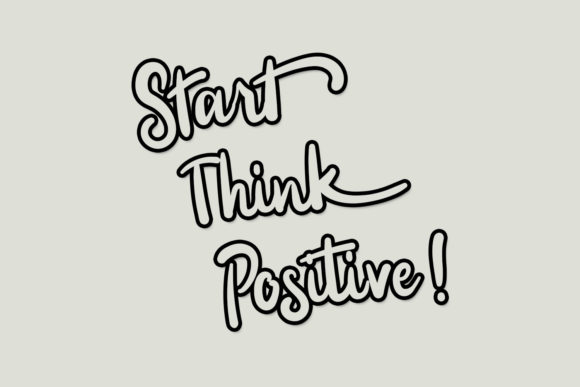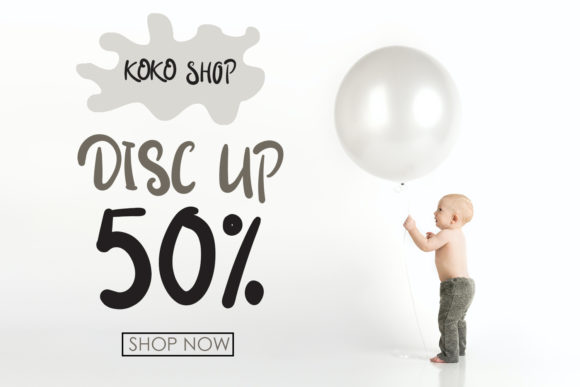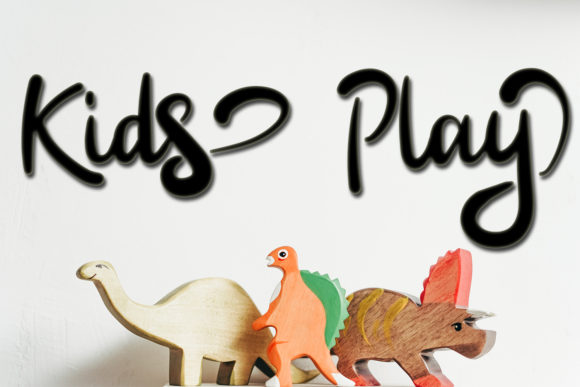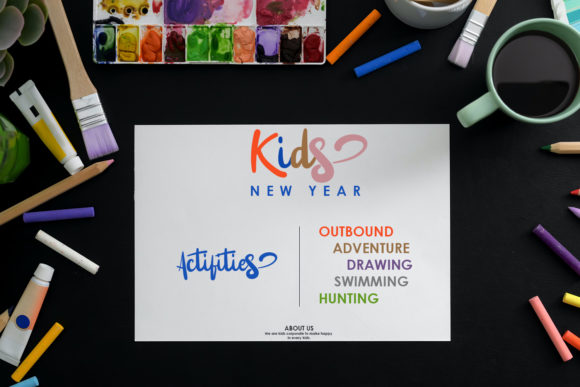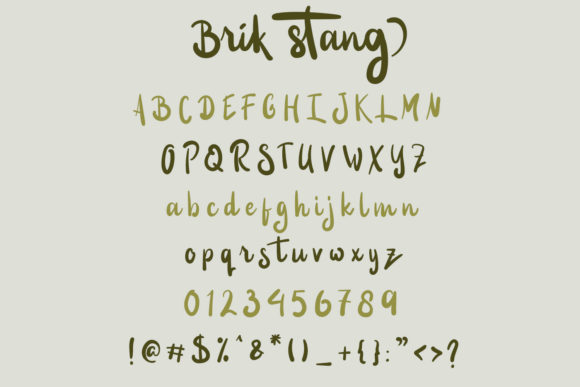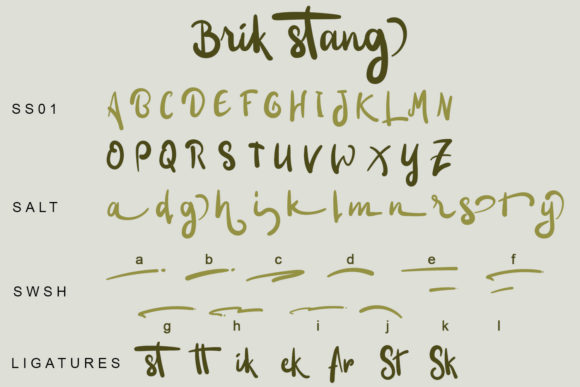
Brik Stang Font: A Charming Handwritten Font for Your Creative Projects
If you’re a designer or crafter looking for a font that exudes charm and friendliness, look no further than Brik Stang Font. This stunning handwritten font is a stylish homage to classic calligraphy, making it perfect for a variety of creative projects. In this article, we’ll take a closer look at the features of Brik Stang Font and explore its many uses.
A Font that Feels Equally Charming and Friendly
Brik Stang Font is a beautifully crafted font that feels equally charming and friendly. Its varying baseline, smooth lines, and gorgeous glyphs all work together to create a font that is both authentic and visually appealing. Whether you’re looking to create wedding invitations, social media posts, or greeting cards, Brik Stang Font is the perfect choice.
A Stylish Homage to Classic Calligraphy
Brik Stang Font is a stylish homage to classic calligraphy, with a unique and elegant feel that is sure to impress. The font features stunning alternates, which allow you to add a touch of personality to your designs. With Brik Stang Font, you can create beautiful and sophisticated designs that are sure to stand out.
Perfect for a Variety of Creative Projects
Brik Stang Font is a versatile font that is perfect for a variety of creative projects. Here are just a few ideas to get you started:
- Wedding Invitations: Create gorgeous wedding invitations that set the tone for a beautiful and memorable day.
- Stationary Art: Use Brik Stang Font to create beautiful stationary art that is perfect for letters, cards, and more.
- Social Media Posts: Add a touch of elegance to your social media posts with Brik Stang Font.
- Greeting Cards: Create cute and charming greeting cards for any occasion.
Key Features of Brik Stang Font
So what makes Brik Stang Font so special? Here are just a few of its key features:
- Varying Baseline: Brik Stang Font features a varying baseline, which gives it a unique and organic feel.
- Smooth Lines: The font features smooth lines that are easy on the eye.
- Gorgeous Glyphs: Brik Stang Font includes a range of gorgeous glyphs that add a touch of personality to your designs.
- Stunning Alternates: The font features stunning alternates that allow you to add a touch of elegance to your designs.
Why Choose Brik Stang Font?
So why choose Brik Stang Font for your creative projects? Here are just a few reasons:
- Authentic Feel: Brik Stang Font has an authentic feel that is sure to impress.
- Elegant and Sophisticated: The font is elegant and sophisticated, making it perfect for a variety of creative projects.
- Versatile: The font is versatile and can be used for a variety of creative projects.
In conclusion, Brik Stang Font is a charming and friendly font that is perfect for designers and crafters looking to add a touch of elegance to their creative projects. With its varying baseline, smooth lines, gorgeous glyphs, and stunning alternates, Brik Stang Font is sure to impress. Whether you’re looking to create wedding invitations, social media posts, or greeting cards, Brik Stang Font is the perfect choice. So why wait? Download Brik Stang Font today and start creating beautiful and sophisticated designs.